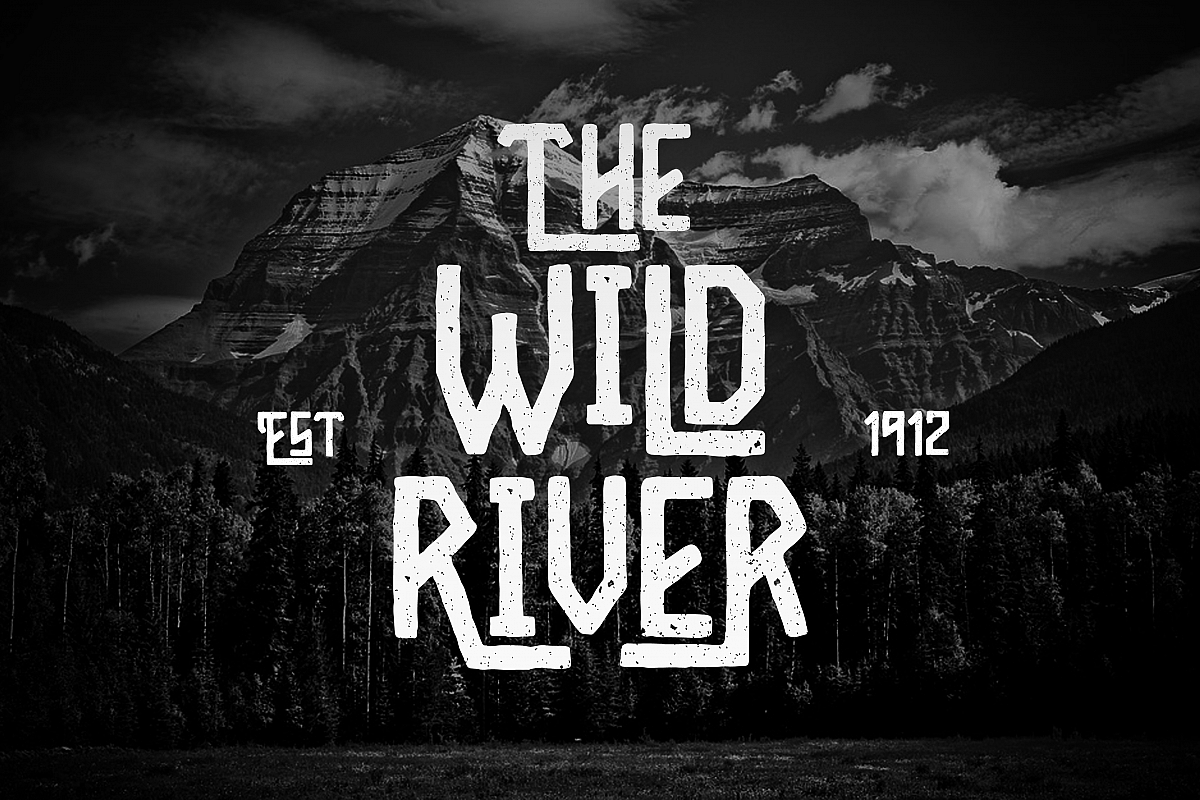
Wild River
WildRiver
Introducing
Wild River with vintage and classic style font with cool character! Wild River perfect for poster design, book covers, merchandise, fashion campaigns, newsletters, branding, advertising, magazines, greeting cards, album covers, and quote designs and more.